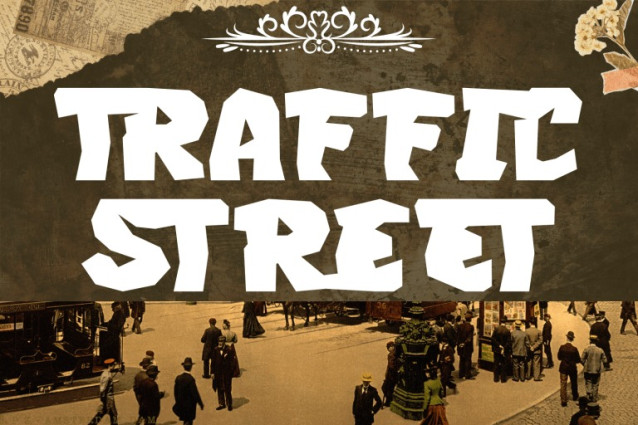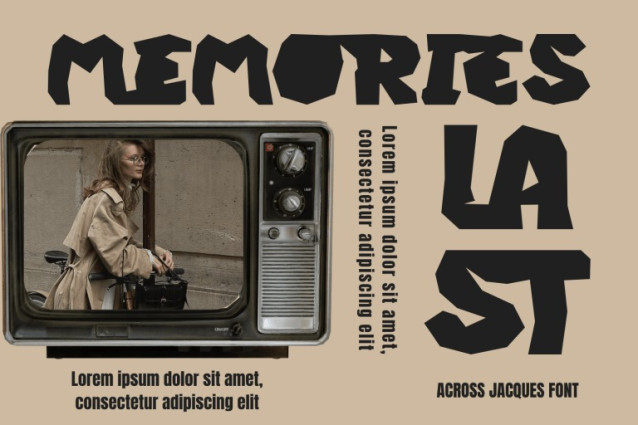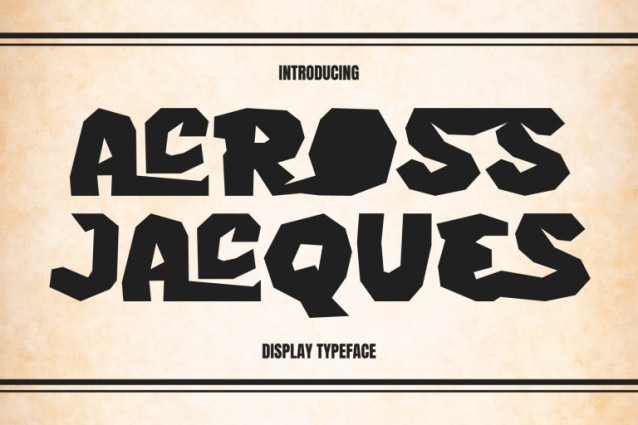
Across Jacques Font
ACROSS JACQUES – DISPLAY FONT, a bold geometric display typeface inspired by brutalist architecture and experimental hand-cut shapes. Each character features sharp angular cuts and uneven edges that create a raw yet artistic rhythm — perfect for projects that demand a powerful visual statement.
🔤Features:
Uppercase & Lowercase Letters
Around 100 Special Ligatures for unique compositions
Numerals & Punctuation for flexible typographic use
Accented Characters to support multilingual design
🔤About 100 ligatures combined with Stylistic Alternates Font:
AC AD AL AN AR AS AT AU AV BE CA CE CH CO CT DE DI EA EC ED EE EL EM EN EP ER ES ET FE FO FR GE HA HE HI HO IE IC IL IN IO IR IS IT JU KE LA LE LI LL LO LY MA ME MI NC ND NE NG NO NT NS OC OF OM ON OO OP OR OT OU OW PA PR RA RD RE RI RO RS RT SE SH SI SO SS ST TA TE TH TI TO TR TT UM UN UR VE WI WO